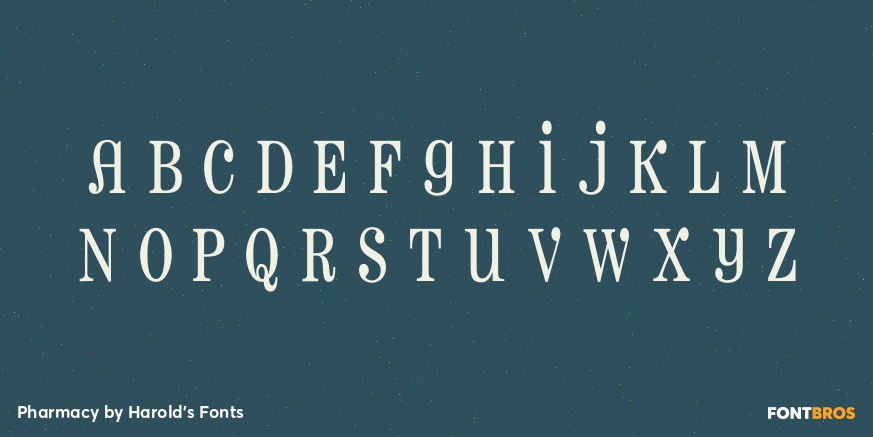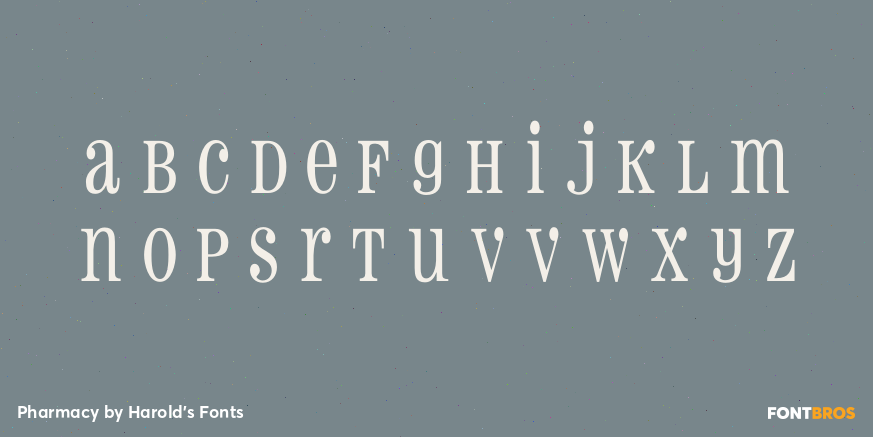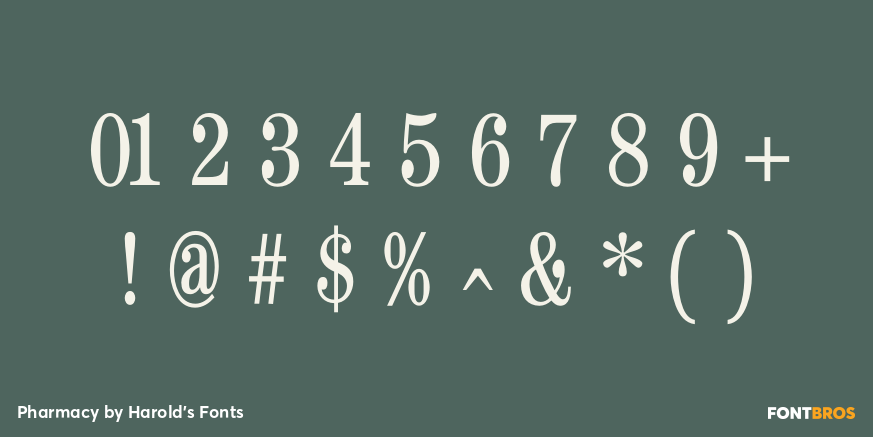
Pharmacy
Free DownloadPHARMACY is a fun mix of upper- and lowercase, with big ball terminals and a narrow width. It was inspired by the sign at a local drugstore in my old hometown of Albany, NY. Waiting at the red light, I’d often stared at the sign, admiring its jolly and curious style and that asymmetrical capital A.